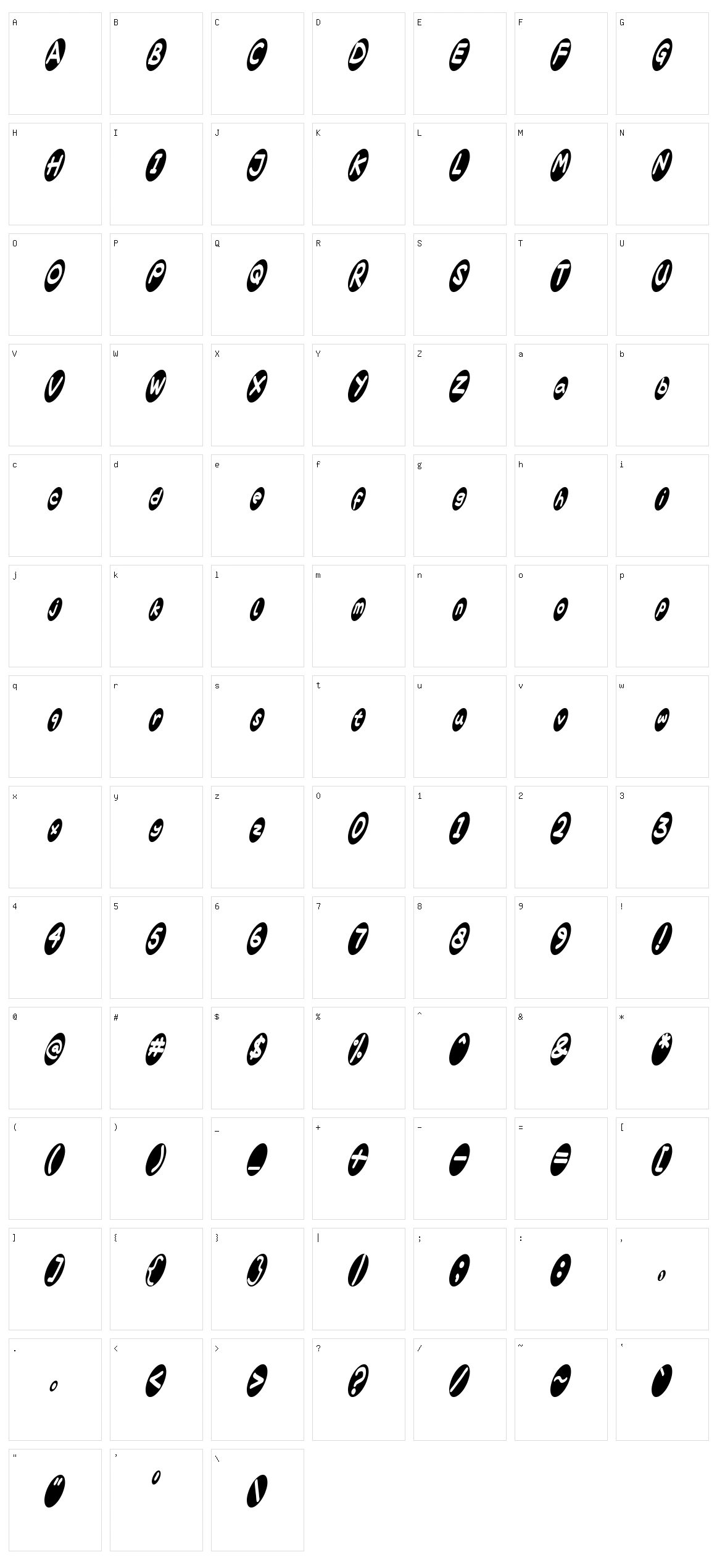
The free font Ovalium Starmind is carefully designed by Rockave St, showcasing a thoughtful balance of creativity and usability and falls under the Decorative font style. When you download the ZIP file, it contains only 27.56 KB of font files, making it lightweight and quick to download. Please review the license details below to understand permitted usage and distribution rights. If license information is not available, we recommend using this font for personal projects only or contacting the author directly for commercial usage permissions.